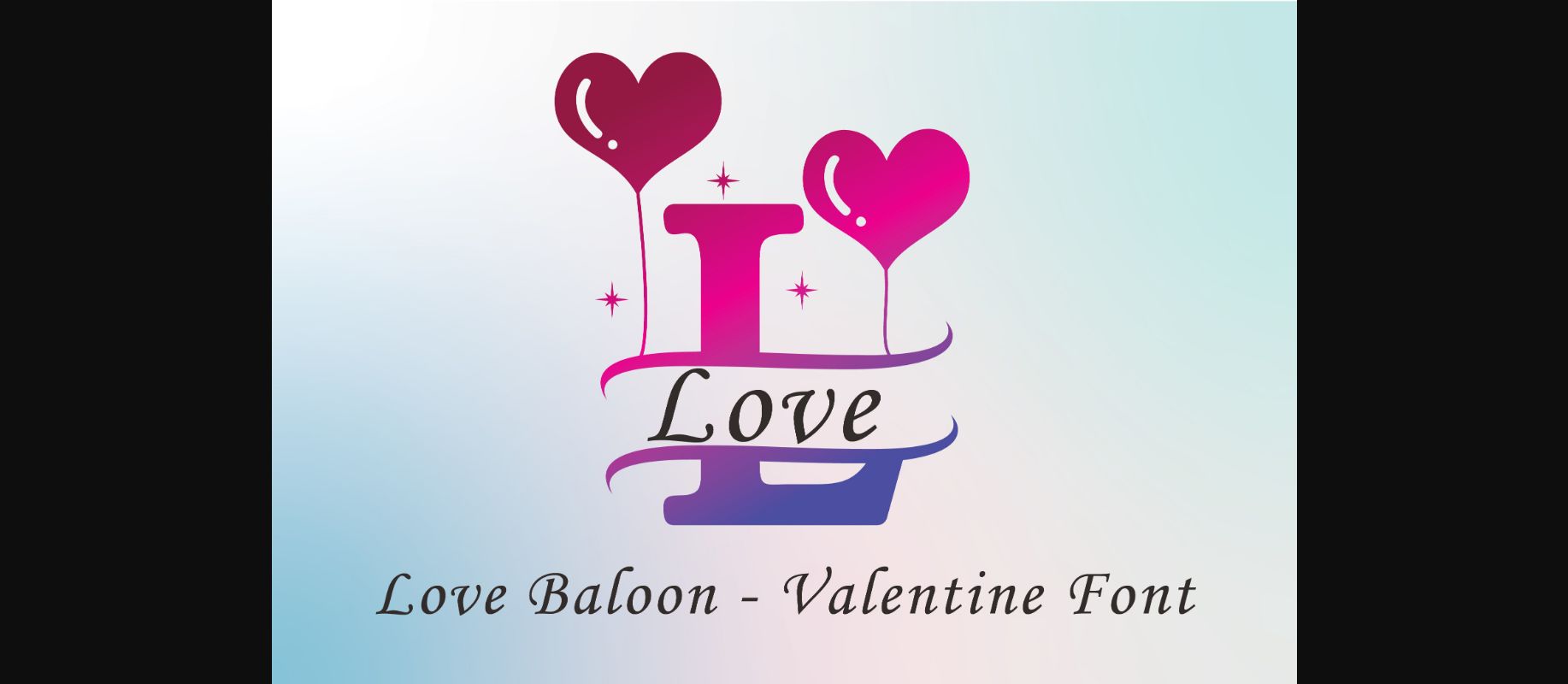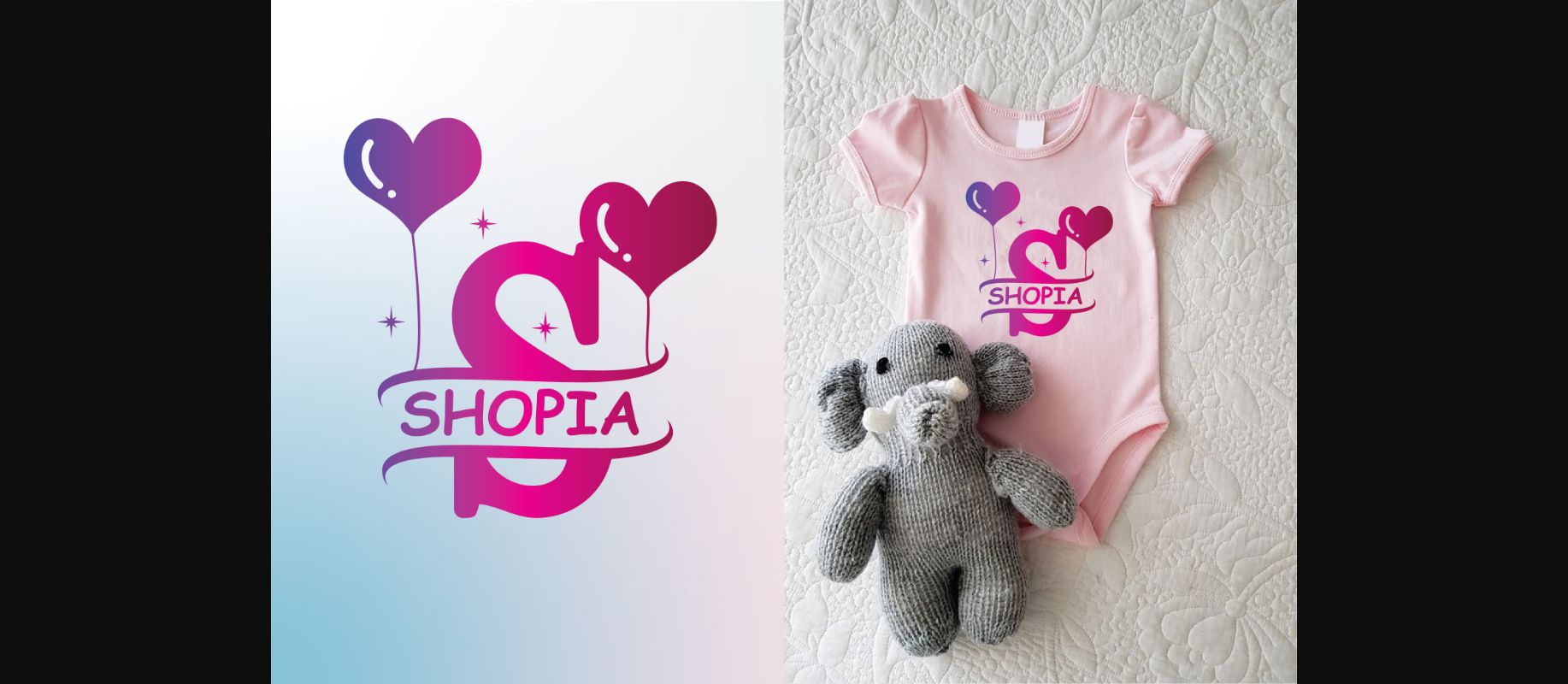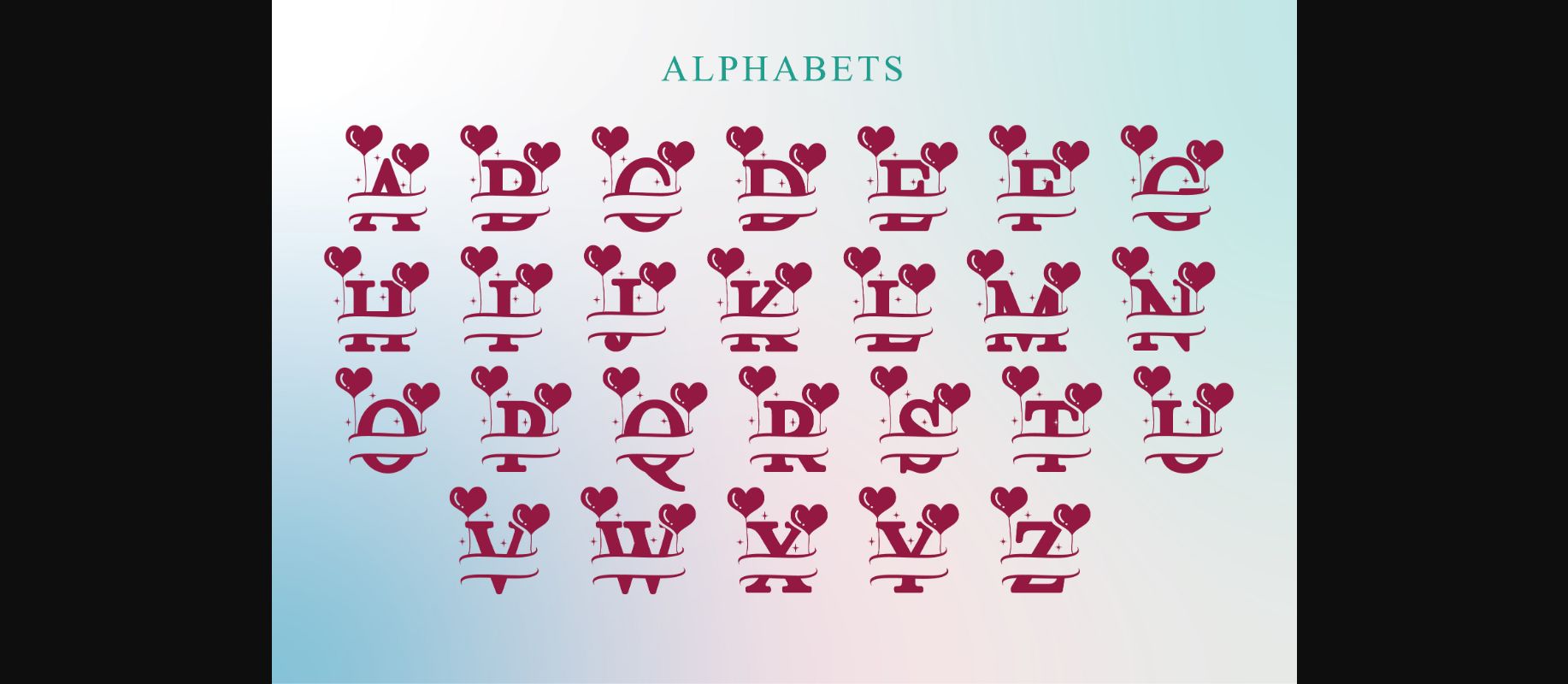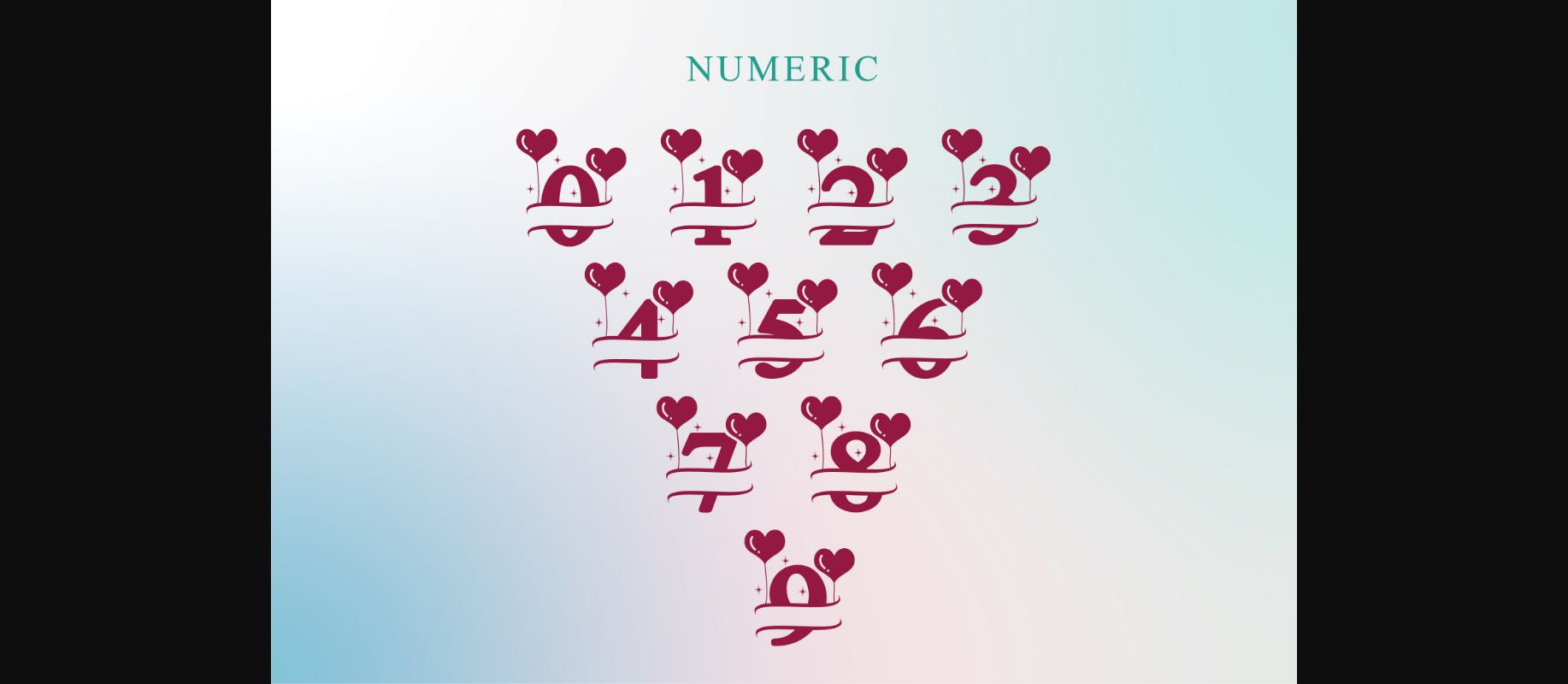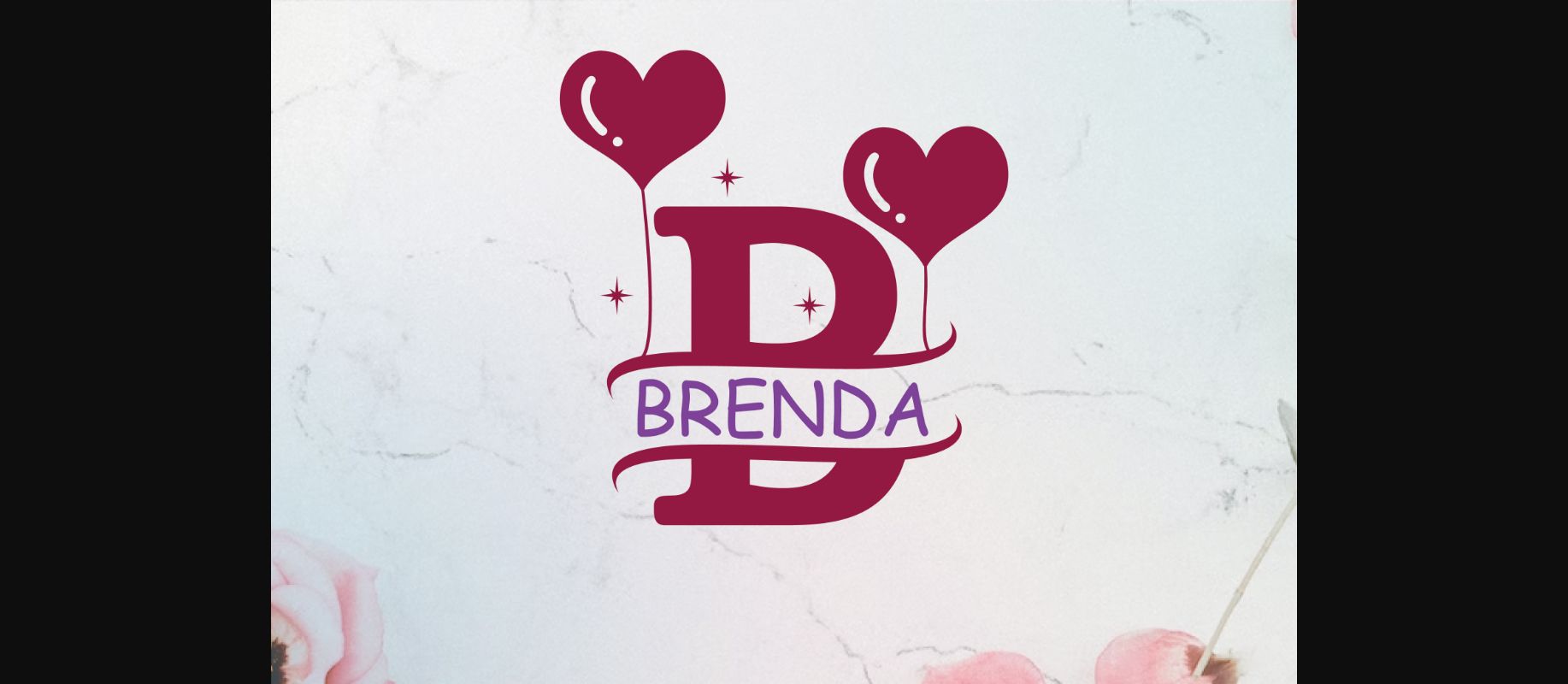
Love Baloon Font
About Love Baloon Font
This cute decorative font is perfect for adding a touch of whimsy to any design. With its playful curves and bouncy letters, Love Baloon it’s sure to bring a smile to anyone who sees it.